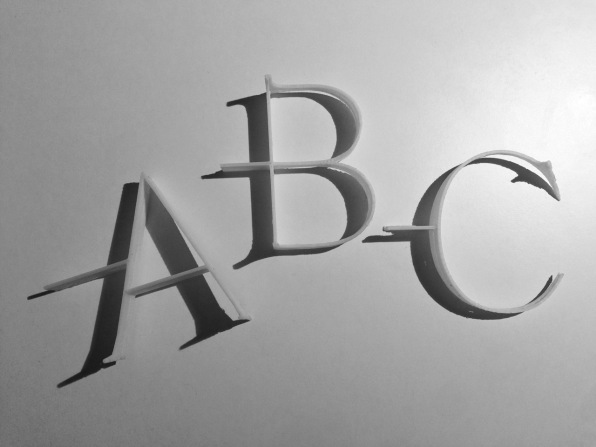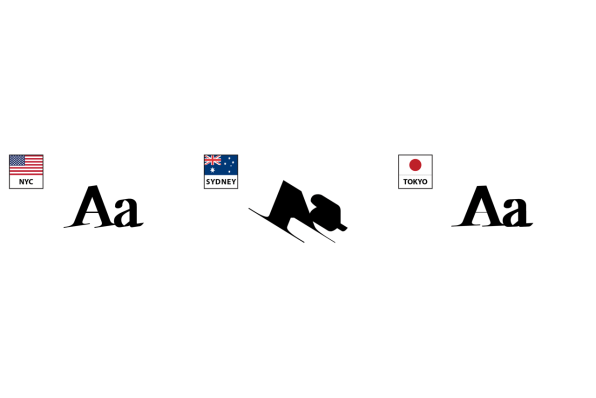
Your handwriting used to say something about you–if only how much you’d practiced your penmanship. But as we’ve all adopted the standardized typefaces of print in our daily digital communications, the highly personalized nature of handwriting has been lost.
Diurne, by Knezo Design Studio, is one typeface that can be imagined near-infinite ways. Its core is a somewhat normal serif typeface. But by using light simulations, Diurne casts a shadow, based upon the position of the sun at the time and place that you are. And so what could have been a totally impersonal font is transformed into a highly specific thumbprint of a moment in your life.
The project was born from designer Alex Knezo’s obsession with creating what he calls “systems.” Rather than create a mere typeface, what if he created a typeface that could spawn more typefaces. “Shadows allowed for that kind of goal as almost everything has a shadow,” he says. “While this iteration of Diurne is a serif typeface, I can also use different lettered structures to create other types of font with the same system.”
At noon on the equator, Diurne looks like a totally typical typeface. The sun is hitting directly overhead, so there’s no discernible shadow. But as the sun begins to set into the evening hours, the glyphs become stretched–almost extruded out across the screen by their long shadows. It’s a neat effect, but it comes at the cost of readability. A 300-word letter written at 6 p.m. would look like someone spilled an inkwell across the page. However, when I bring that up to Knezo, he’s unfazed.
“I’m not worried about the legibility issue that occurs near sunrise and sunset. I rather like the almost calligraphic appearance the font has as it transitions from impossible symbols to legible characters,” he says. “However, at those difficult-to-read times, I don’t believe the user would be trying to use the font for reading. The words would become more like a graphic icons than letters.”
“I’ve definitely given this thought, and I would love to have this happen,” he says, “but given the resources I have at the moment, this is really difficult.”